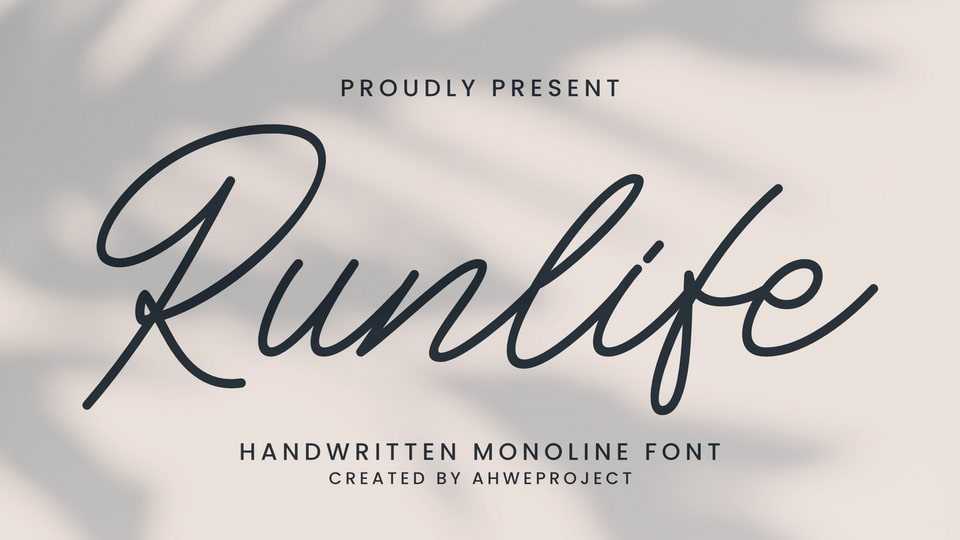
Download Runlife Script font, a sophisticated modern script typeface, an excellent choice for projects related to photography, signature styling, and branding.